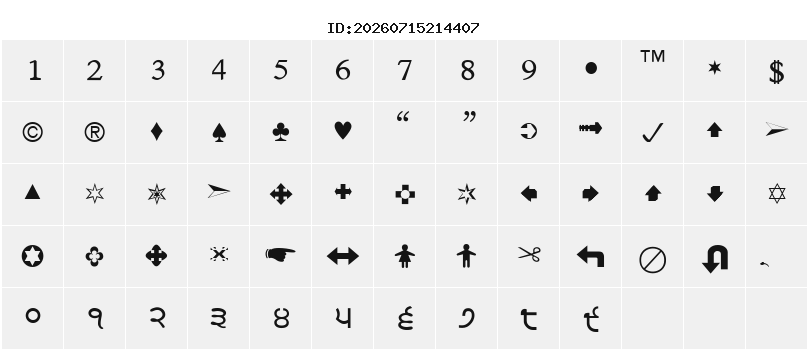
AtamGurmukhi Preview
• Font Name: AtamGurmukhi
• Font ID: Atammarg: AtamGurmukhi: 1998
• Full Font Name: AtamGurmukhi
• Version: 1998; 1.0, initial release
• PostScript Name: AtamGurmukhi
• Character Count: 190
About AtamGurmukhi.ttf
AtamGurmukhi.ttf is a modern, elegant sans-serif font designed for ultimate readability and visual harmony. Perfect for branding, headlines, web design, and print materials.